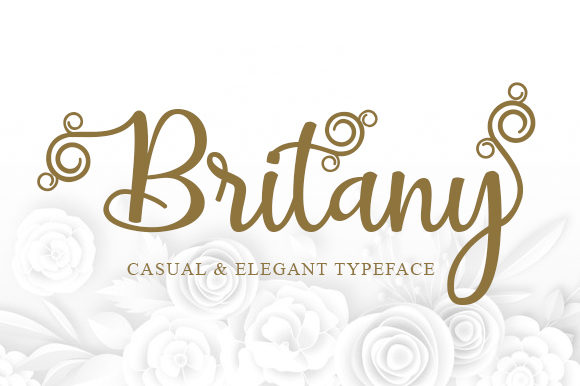
Welcome to the realm of Britany Script Font, an exquisite calligraphy masterpiece that weaves a spell of enchanting beauty onto your digital creations. Get ready to be captivated by its graceful curves, delicate strokes, and a touch of vintage charm that radiates timeless elegance.
Unleash your creativity with Britany Script's versatile nature, seamlessly adapting to a myriad of design projects. Elevate your wedding invitations, branding materials, social media posts, and even heartfelt letters with its captivating allure. Immerse yourself in the flow of Britany's strokes, allowing your words to dance and twirl with an unmatched grace.
Picture yourself crafting an enchanting wedding invitation, where Britany Script's elegant swirls dance across the page, inviting your guests to a day filled with love and joy. Or envision your Instagram feed adorned with captivating posts, each one adorned with Britany's graceful touch, drawing your audience into your world of creativity.
Britany Script is more than just a font; it's an experience that evokes emotions and ignites the imagination. Its romantic vibe is sure to leave a lasting impression on your audience, whether it's your clientele, followers, or loved ones.
Step into the world of Britany Script and embark on a creative journey where your words take on a life of their own. Fall in love with its undeniable charm and let your creativity soar to new heights. Embrace the magic of Britany Script today!